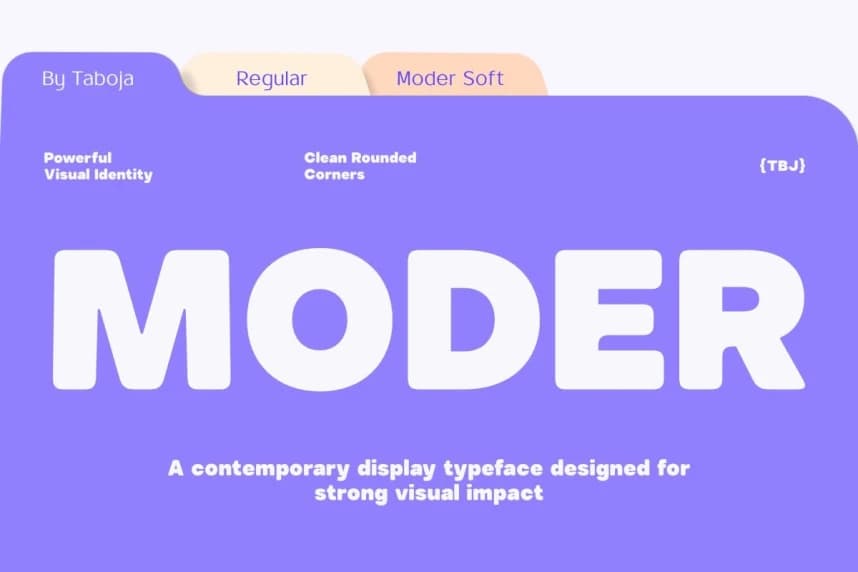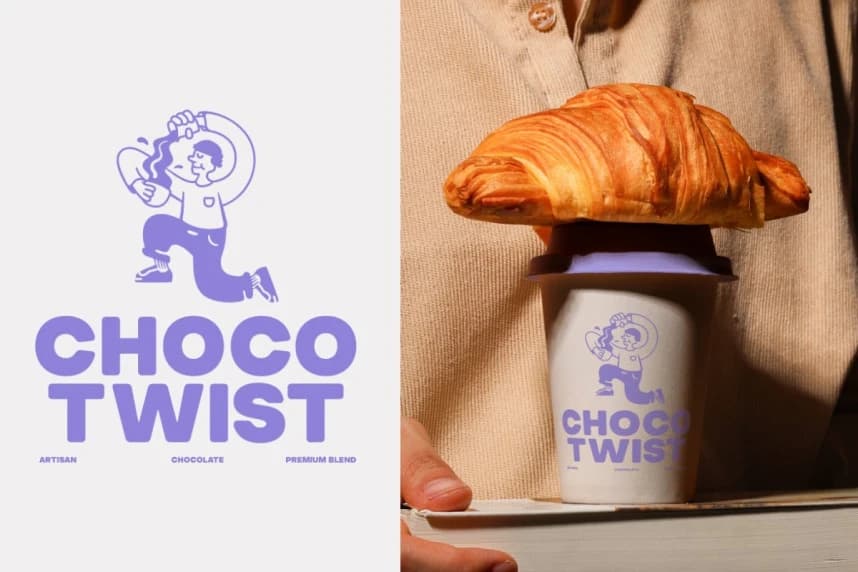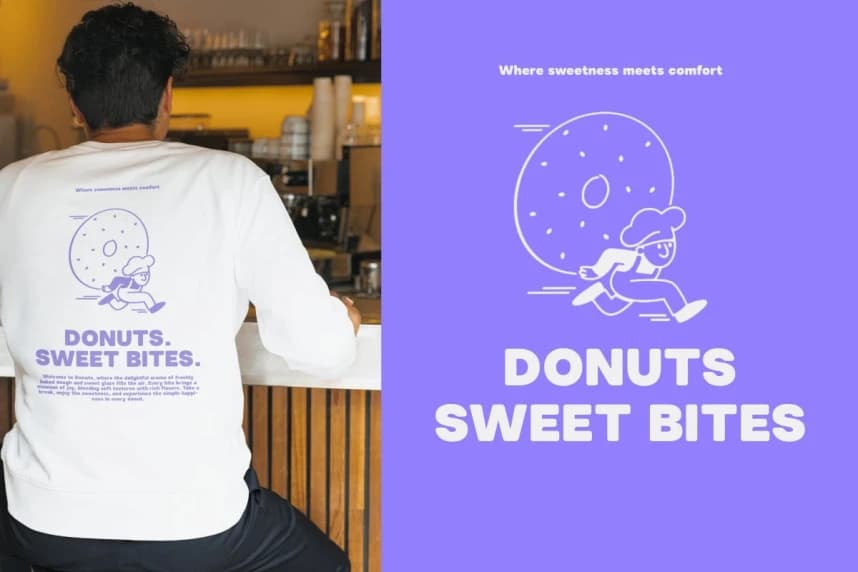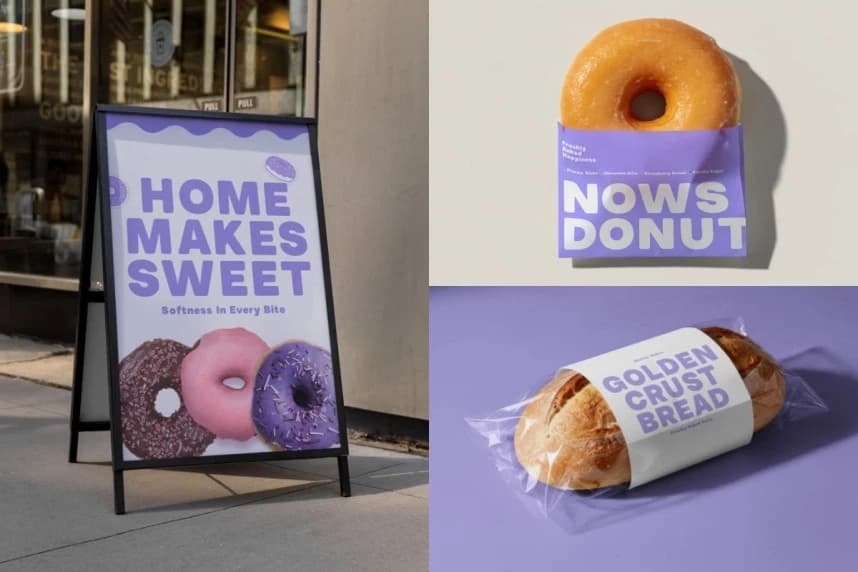
TBJ Moder Font
TBJ Moder Font is a contemporary rounded display typeface designed to deliver a bold and modern visual identity. Created with smooth curves and clean rounded corners, this typeface offers a friendly yet powerful character that stands out in large headlines and modern branding.